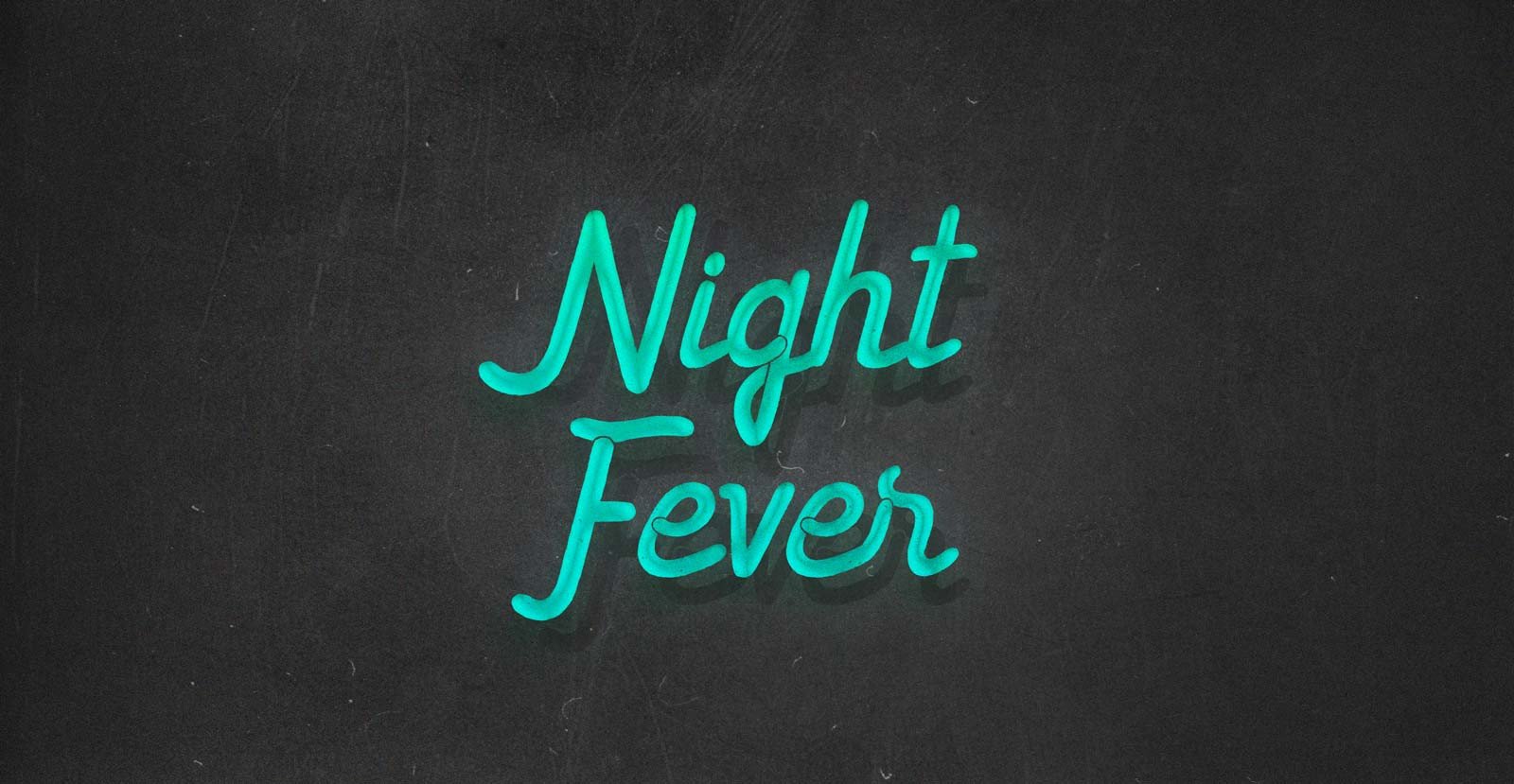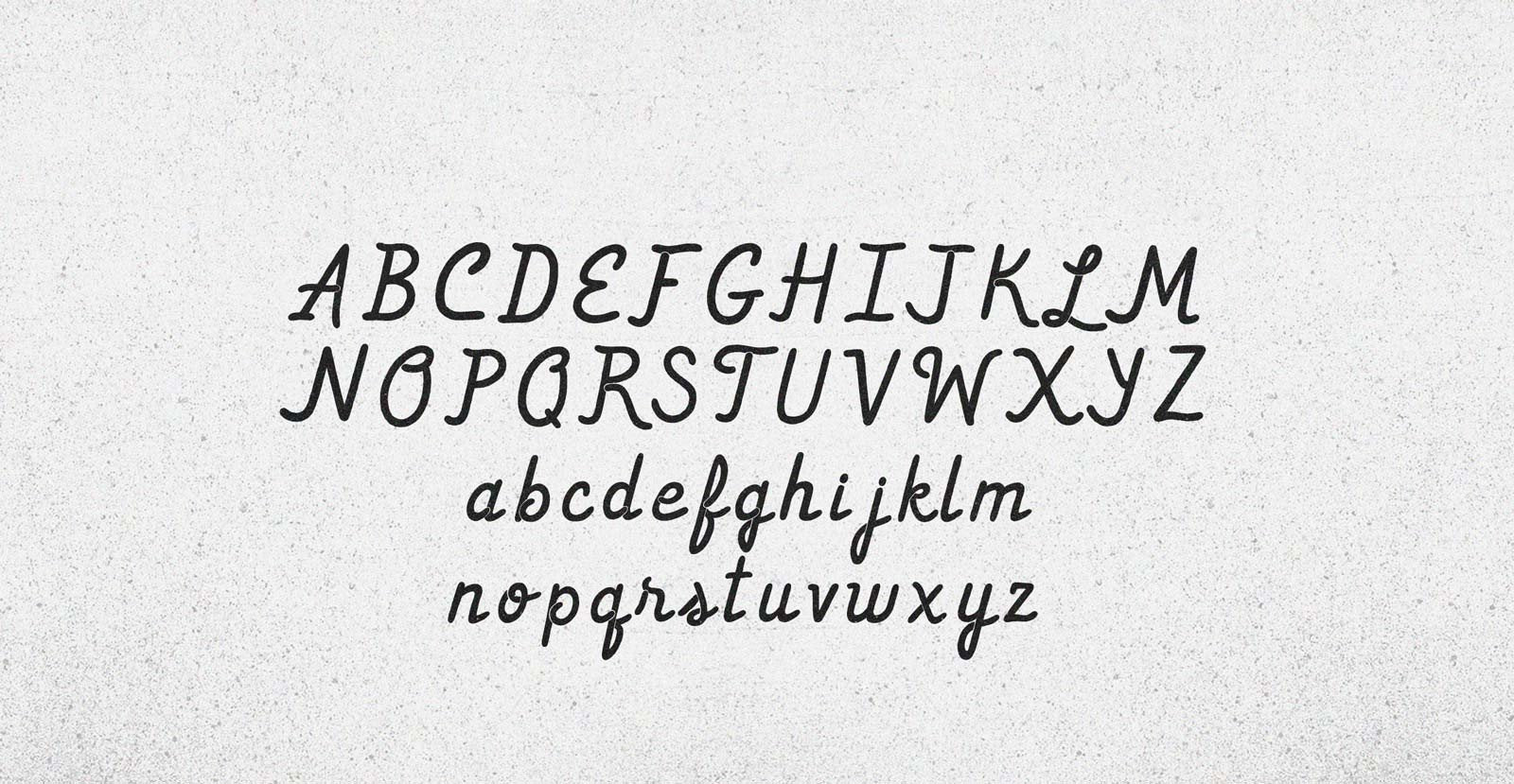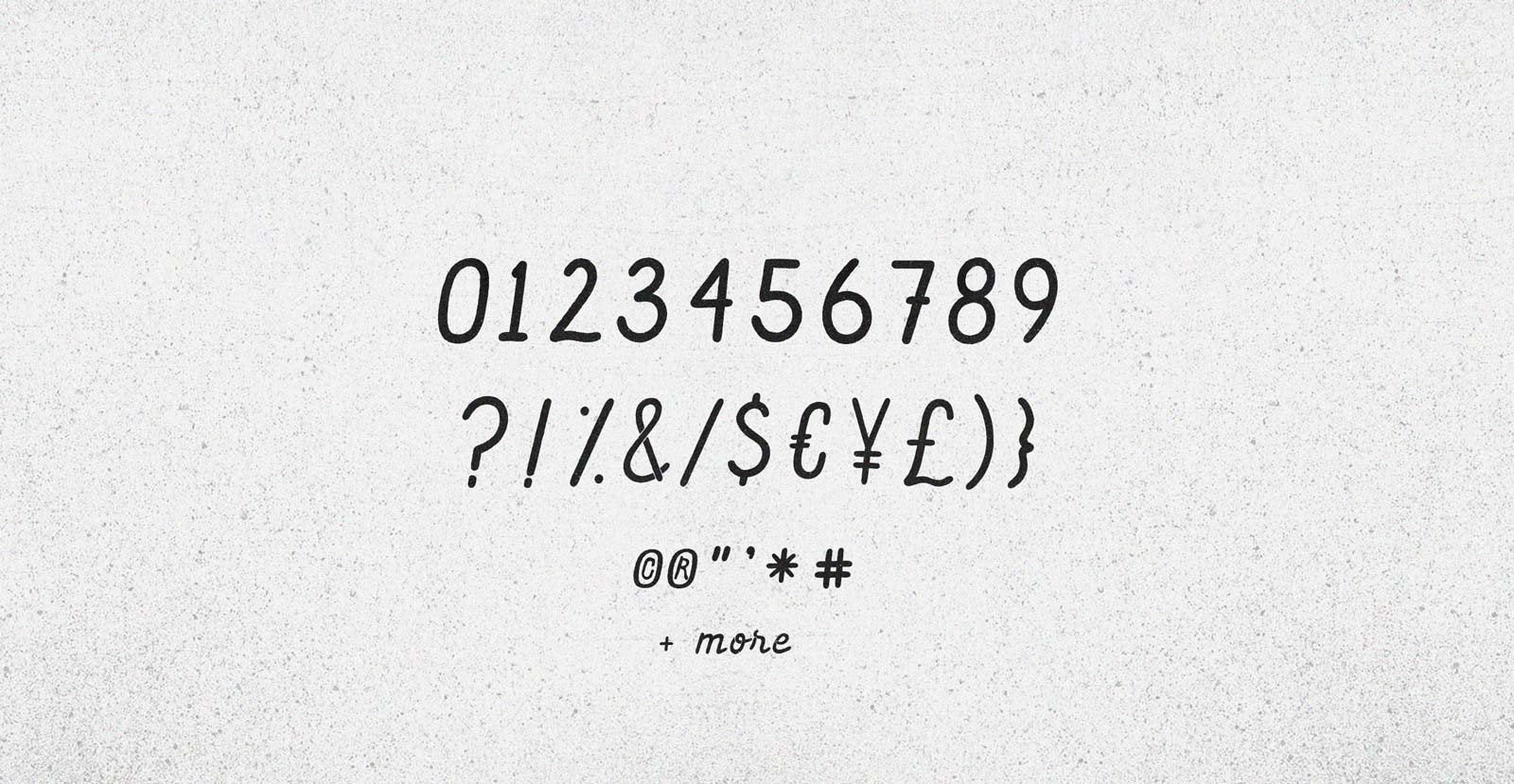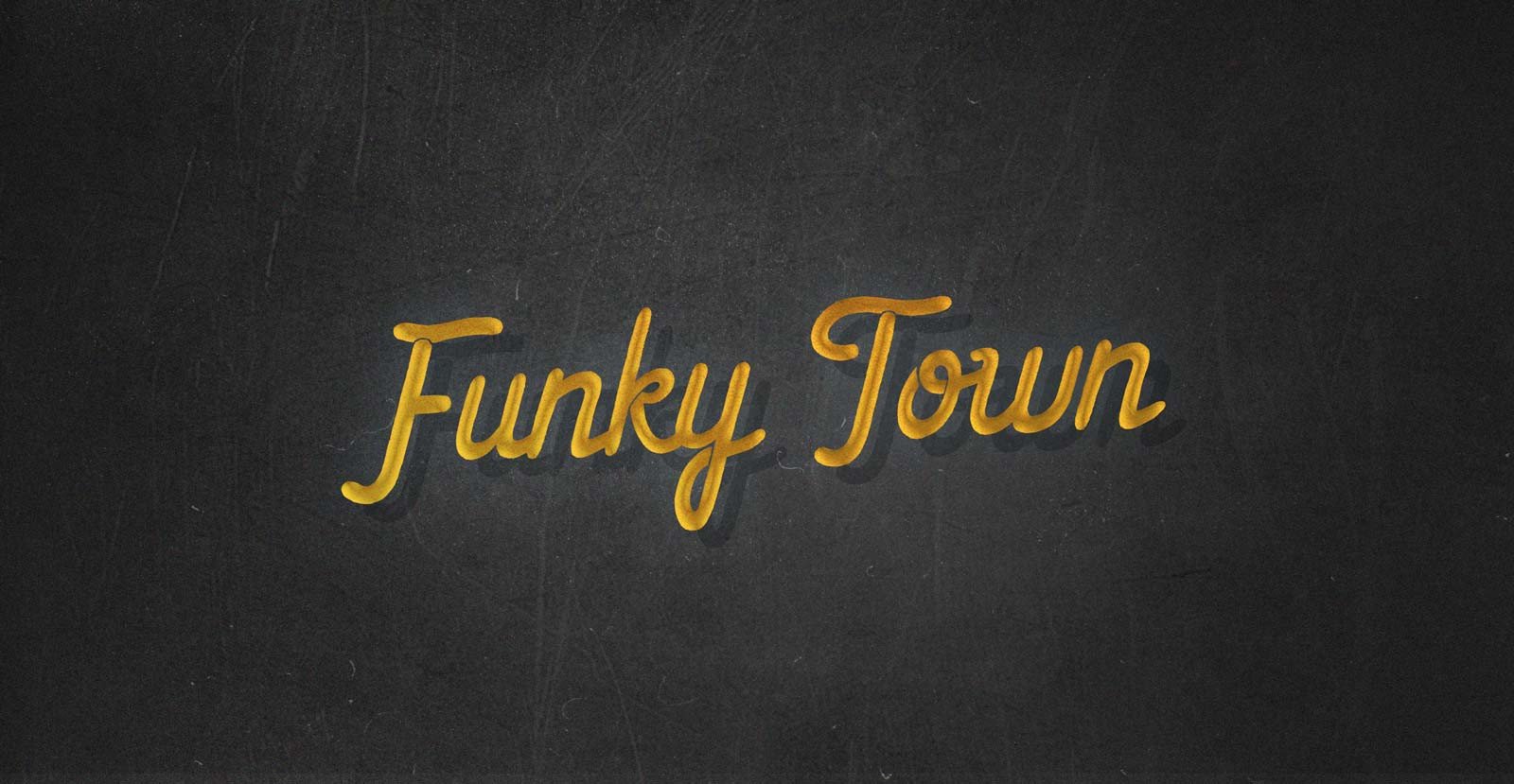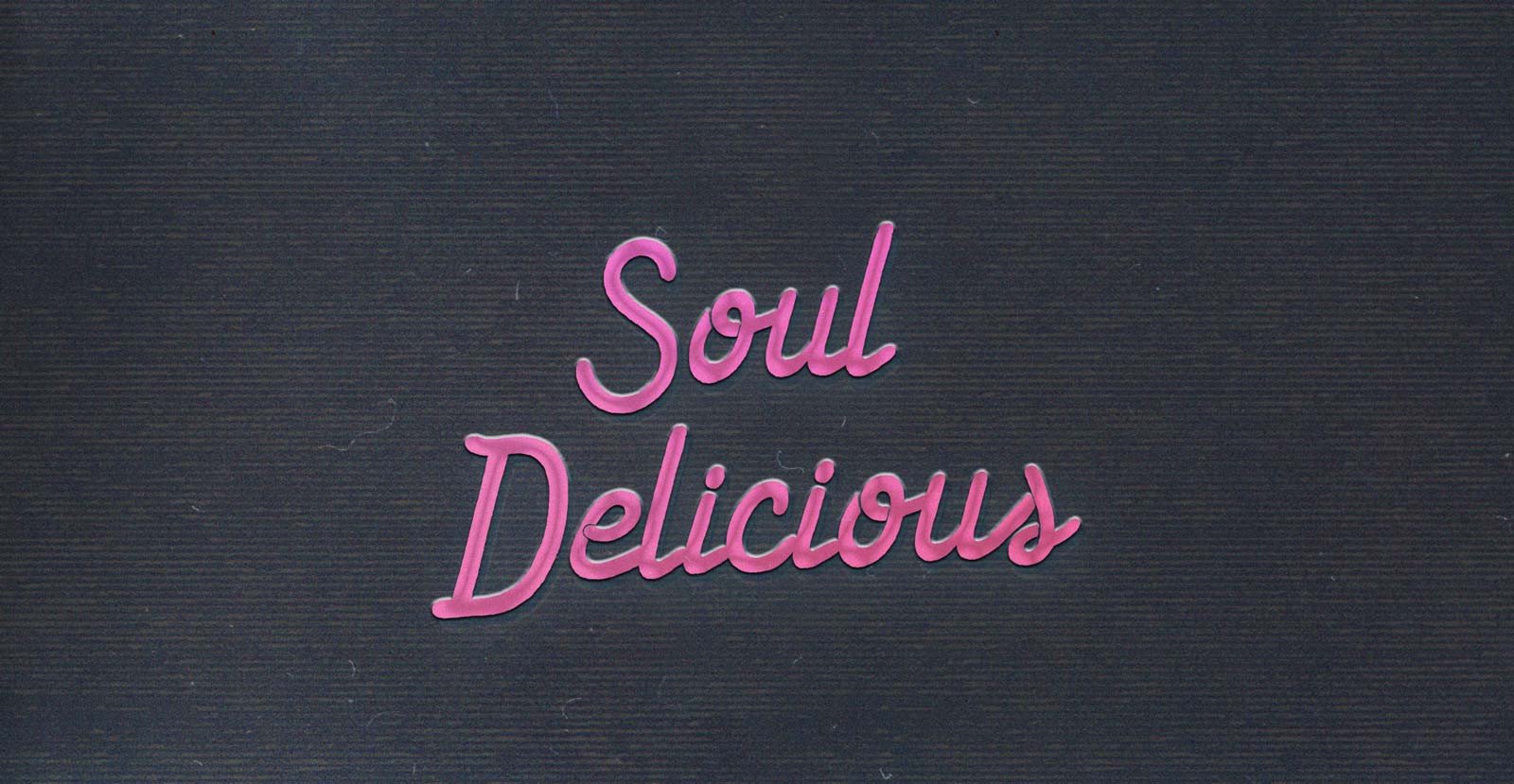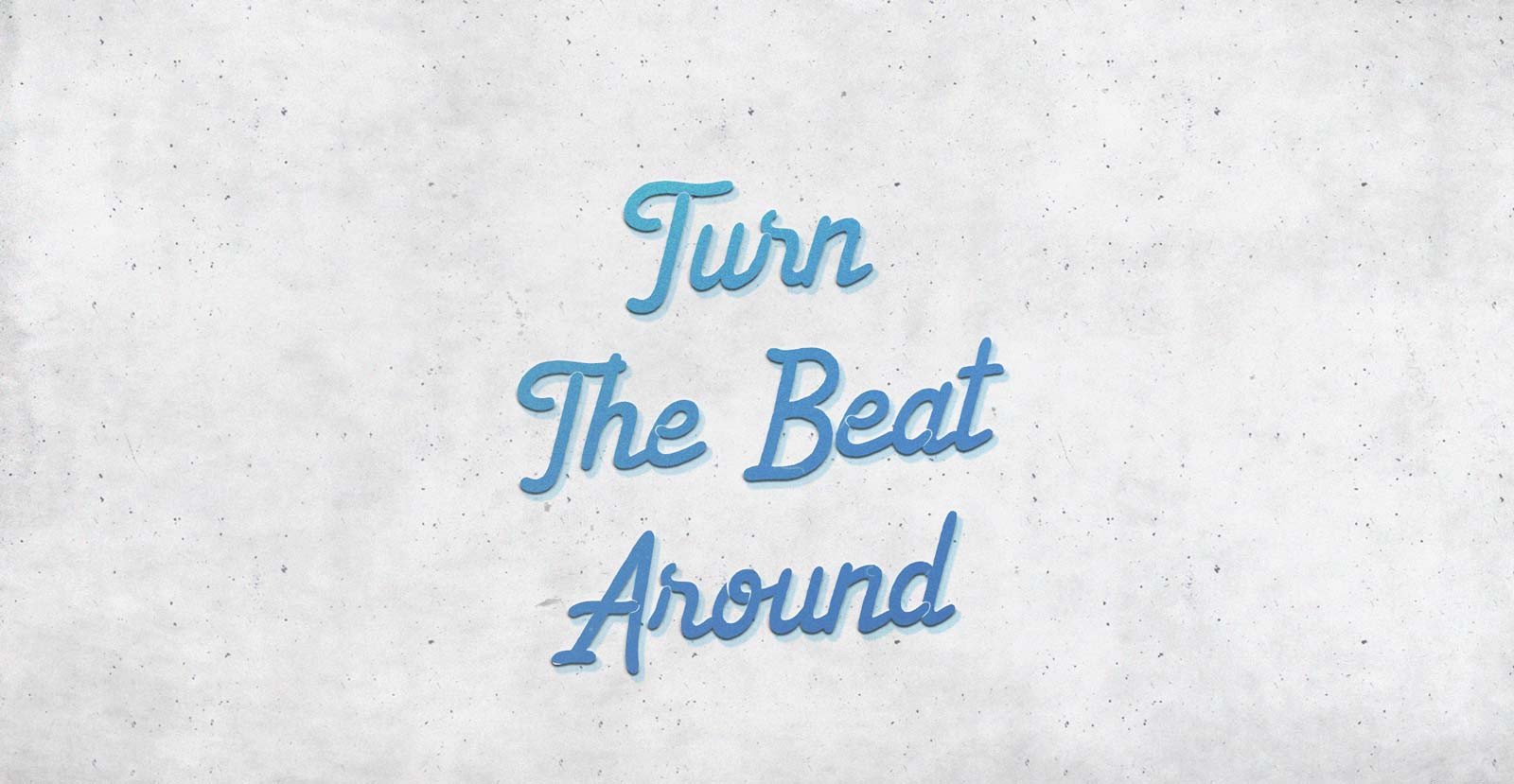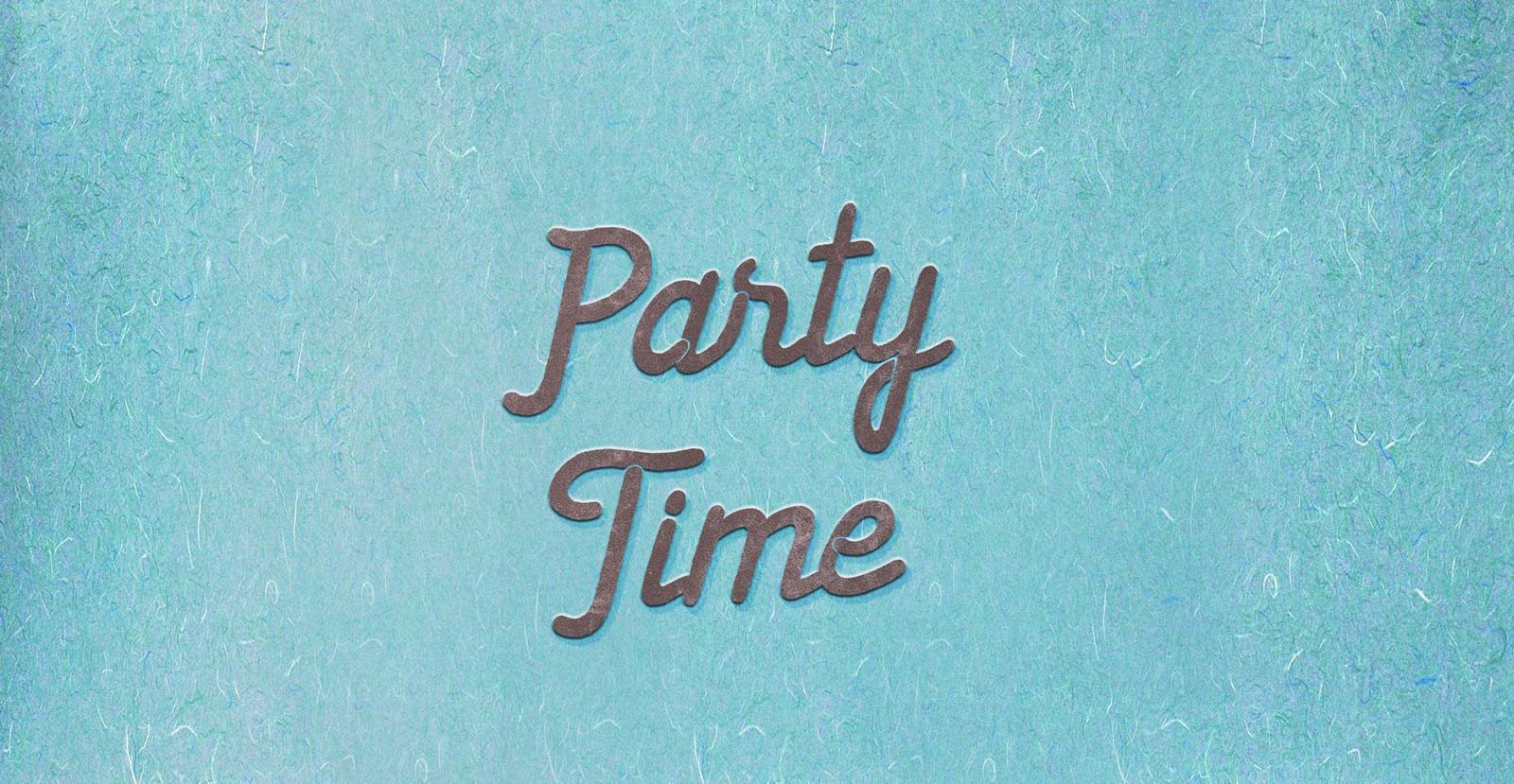
Night Fever
Night Fever caught fast here, became epidemic, and broke its quarantine, spilling into the street. It's past four AM by the time the night turns cold and prickles the sweat beading on her skin. Delirium and shaking are common symptoms of an infectious beat, and she's infected.